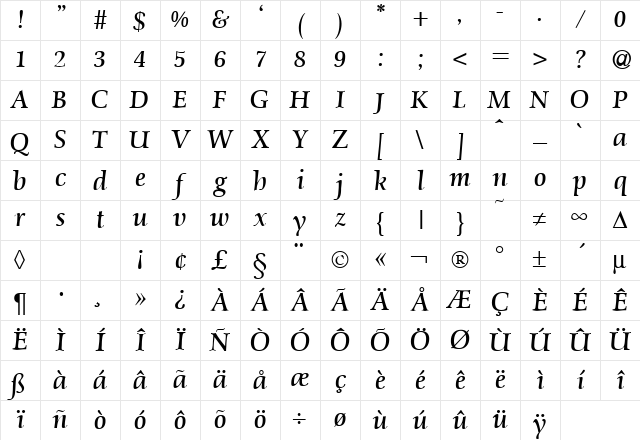
Scenic RegularItalic
Scenic Family
Design Context for Scenic
Scenic is a composed and adaptable typeface that performs quietly and consistently across a wide range of design contexts. The slanted form adds forward momentum and visual energy.